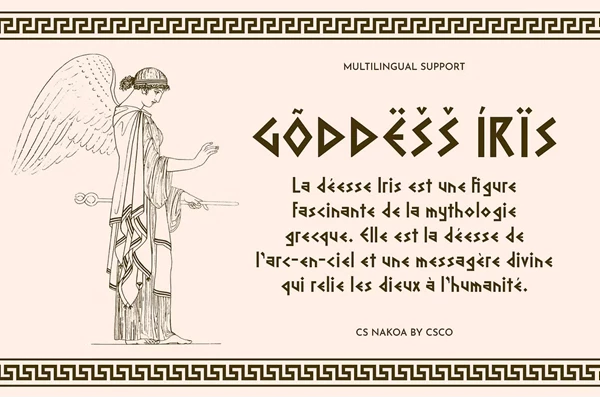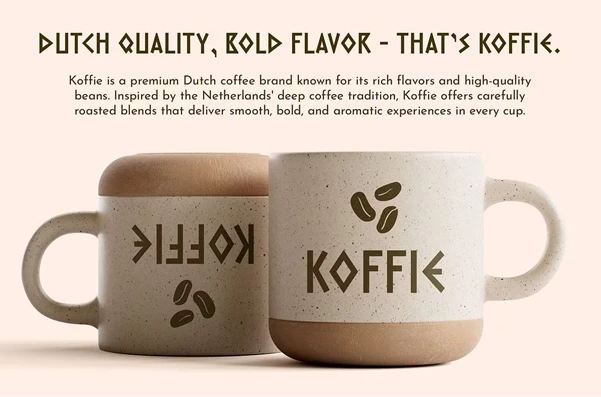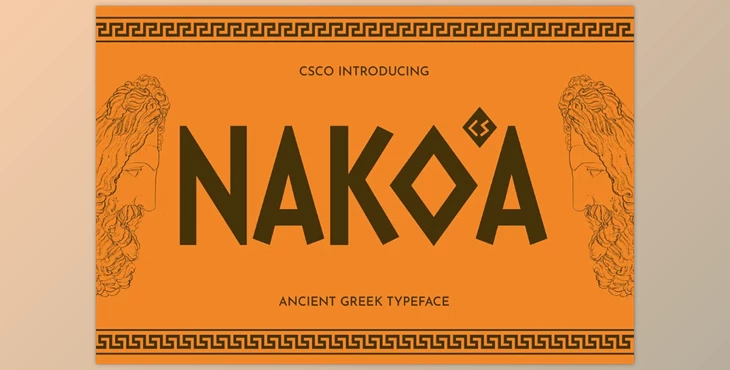
CS Nakoa – Ancient Greek Font:
CS Nakoa is a font style that is elegant and portrays a modern look. It is a sans serif typeface with its sources from inscriptions in Ancient Greece sculptures. The typeface combines history and modern times by having geometric shapes and ornamental features. The CS Nakoa font is designed around mythology, classic philosophy, and art, which makes it most suitable for any strength, wisdom, and artistic legacy projects. The font is apt for museum exhibit designs, editorial layouts, branding projects, film visuals, and many more. This makes the font stand out and helps depict the modern world colliding with ancient culture.
Some great features of CS Nakoa – Ancient Greek Font:
- Three styles: Regular, Italic, and Reverse Italic
- Includes uppercase and lowercase letters
- OpenType-compliant numerals and punctuation
- Multilingual support with accented characters